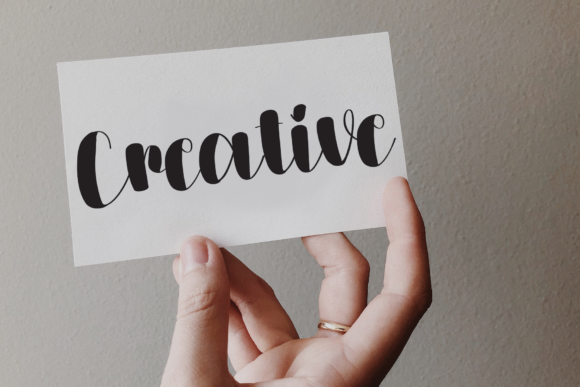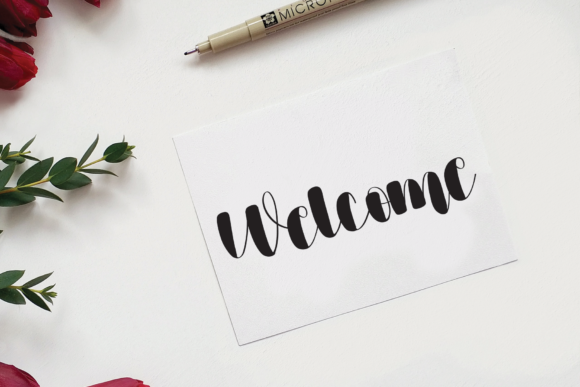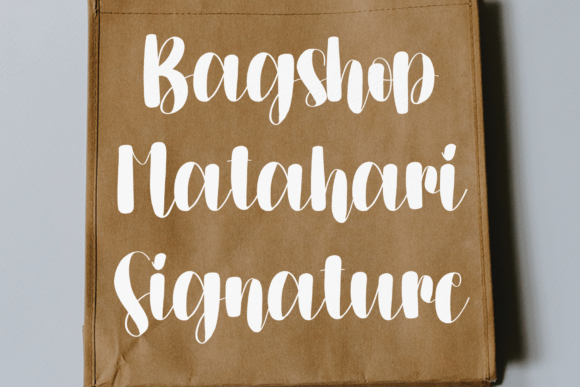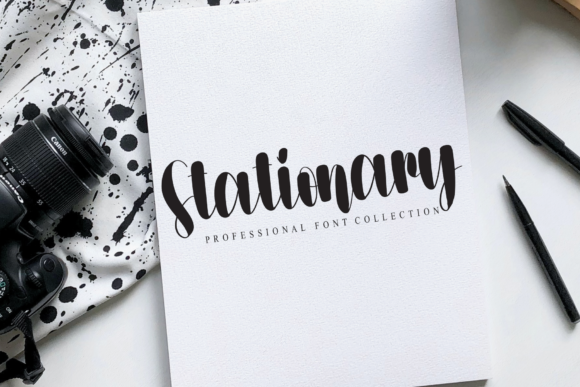
The Catch: How Fishing Font Can Elevate Your Designs
I still remember the design project that made me fall in love with the Fishing font. I was working on a branding campaign for a new outdoor gear company, and I was struggling to find the perfect script font to capture their carefree, adventurous spirit. That’s when I stumbled upon Fishing font, and it was like reeling in a big catch – I knew I’d found the one! 🎣
So, what makes Fishing font so special? Here are a few things I love:
- ✨ Playful yet chic: Fishing font strikes the perfect balance between fun and sophistication, making it perfect for a wide range of design projects.
- ✅ Versatile: Whether you’re designing a logo, brochure, or social media graphics, Fishing font adapts seamlessly to any topic or style.
- 💫 Elegant swashes: The font’s beautiful swashes add a touch of elegance and whimsy to any design.
Of course, no font is perfect, and Fishing font has a few minor quirks:
- 🤔 Limited multilingual support: While Fishing font covers the basics, it may not be the best choice for projects requiring extensive multilingual support.
- ⚠️ Occasional kerning issues: As with any script font, you may need to adjust kerning manually to achieve optimal results.
The Story Behind Fishing Font
Legend has it that Fishing font was inspired by the carefree summers spent by its designer near a serene lake. The font’s playful, flowing lines are meant to evoke the gentle ripples on the water’s surface and the thrill of reeling in a big catch. Whether or not that’s true, one thing’s for sure – Fishing font has a unique charm that will make your designs stand out.
| Font Name | Fishing Font |
| What makes Fishing font so versatile? | Fishing font’s unique blend of playfulness and sophistication makes it suitable for a wide range of design projects, from branding and advertising to packaging and digital graphics. |
| Is Fishing font suitable for body text? | While Fishing font is beautiful, it’s primarily designed for display use. For body text, consider a more traditional font for optimal readability. |